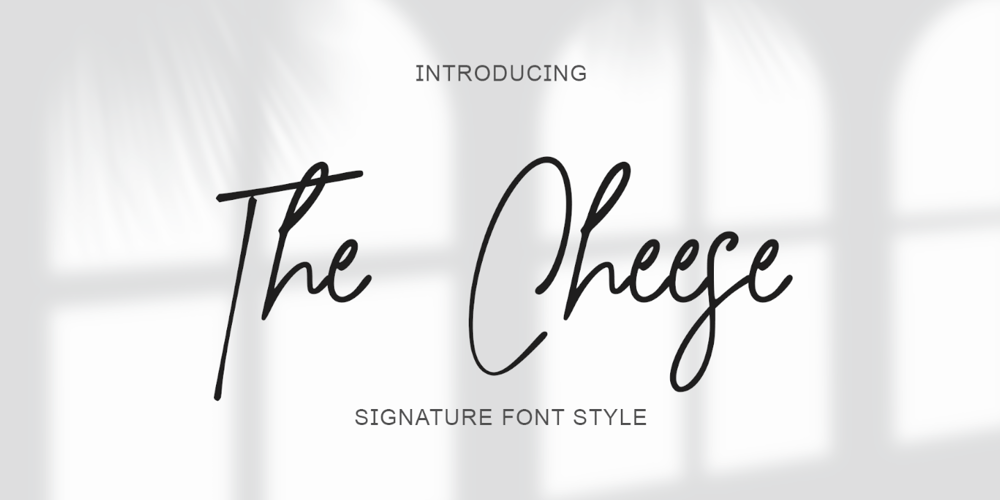
The Cheese Font Family was designed by Isroni Yoga Prasetya and published by Selvia Design. The Cheese contains 1 styles and family package options. “The Cheese” is an elegant and beautiful signature font. This font is equipped with uppercase, lowercase, numerals, punctuation, and multilingual support. It is suitable for weddings, invitations, engagements, business branding, logos, banners, posters, promotions, social media, and others.